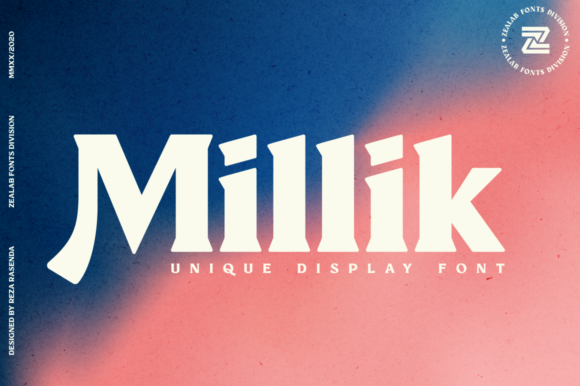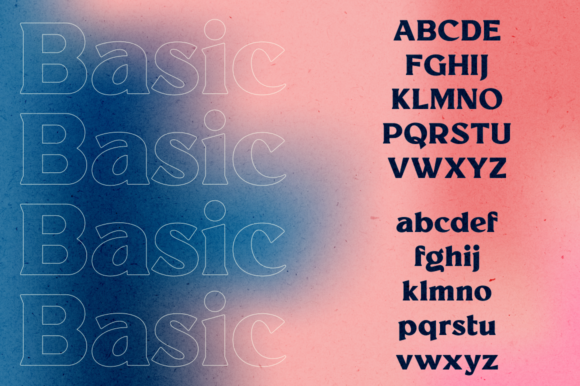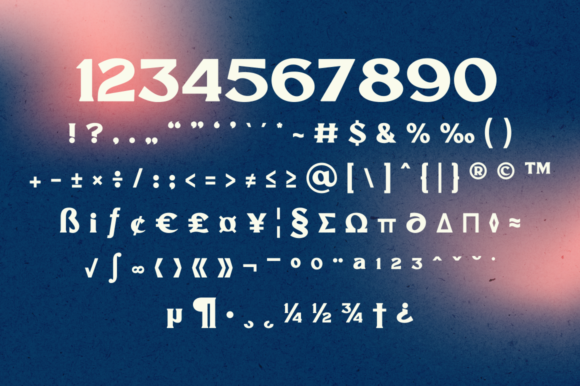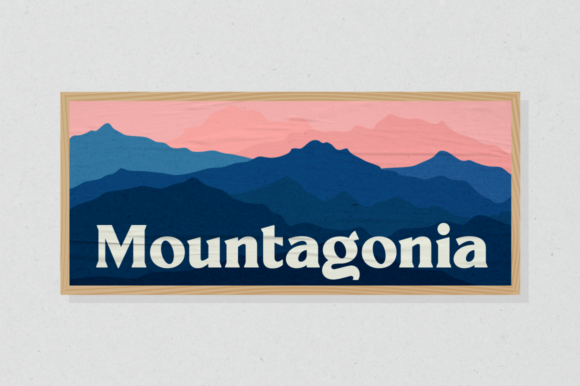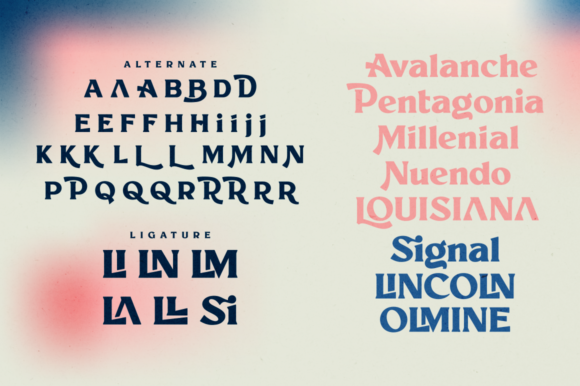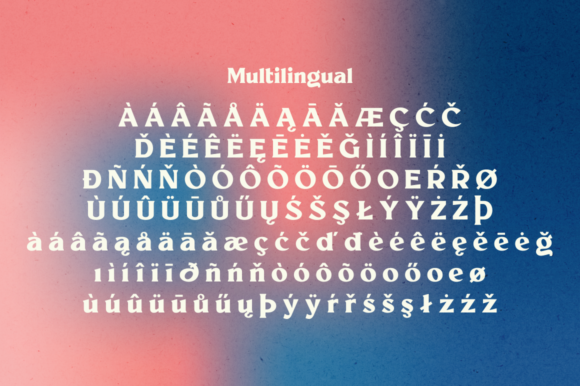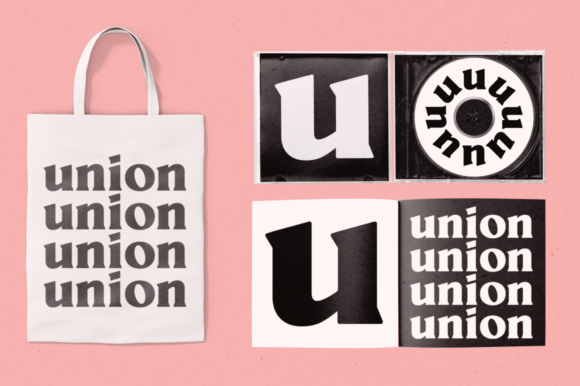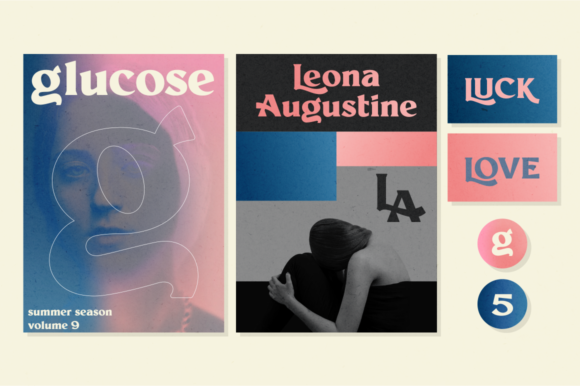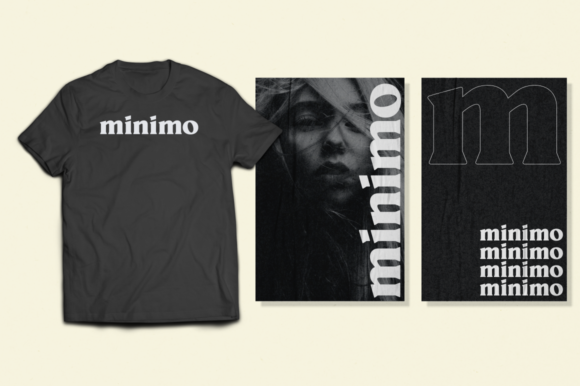
Millik Font
Millik is a bold and chunky lettered display font. Masterfully designed to become a true favorite, this font has the potential to bring each of your creative ideas to the highest level!